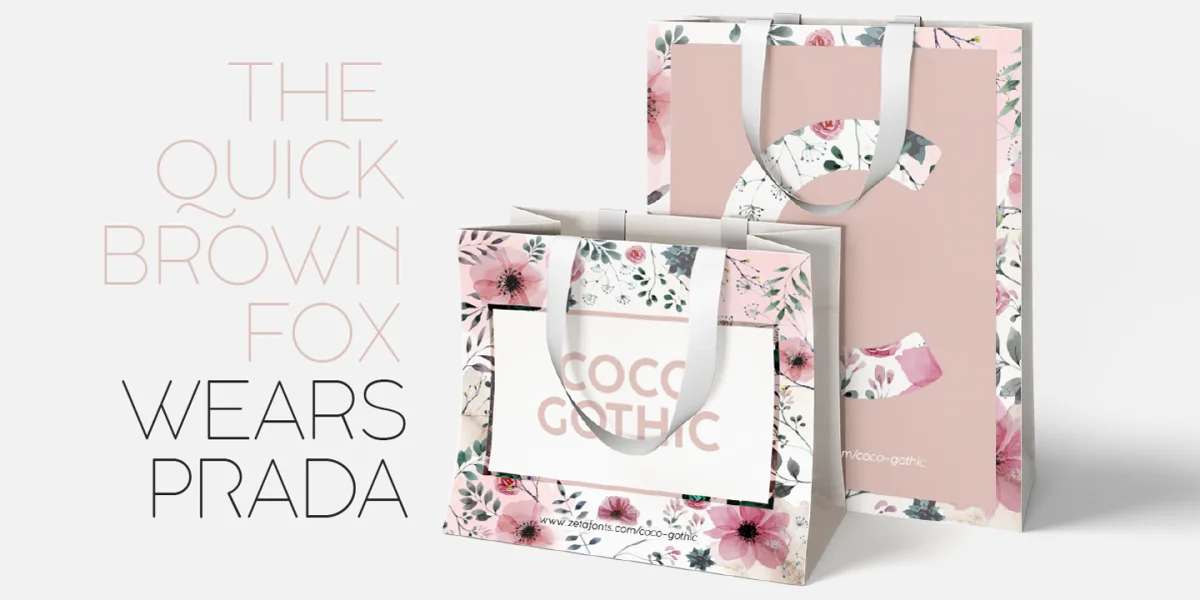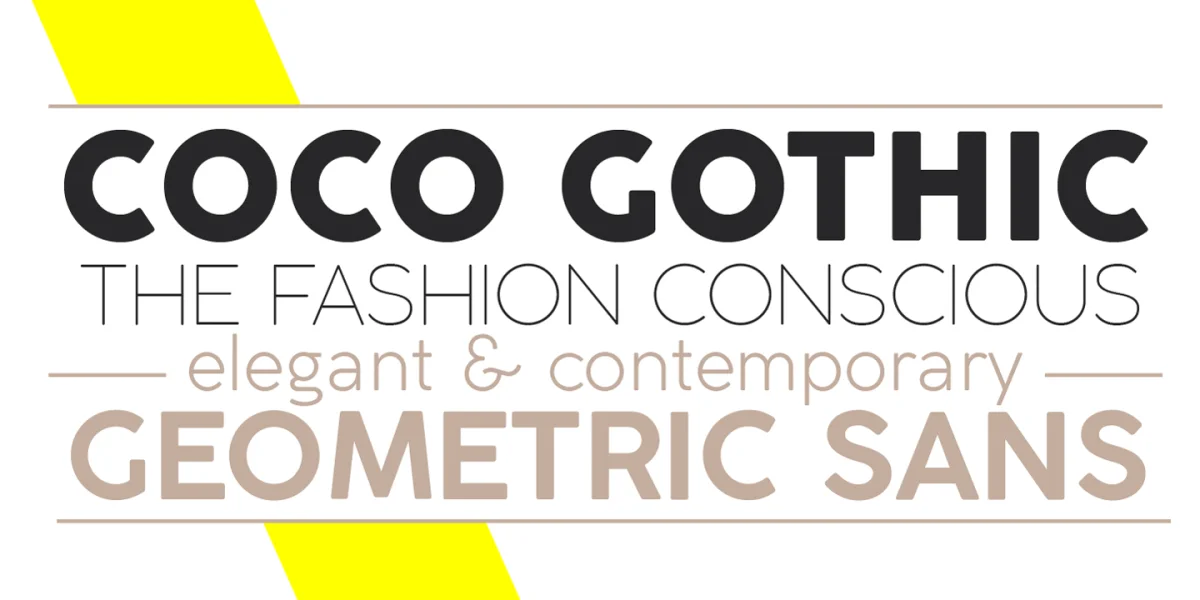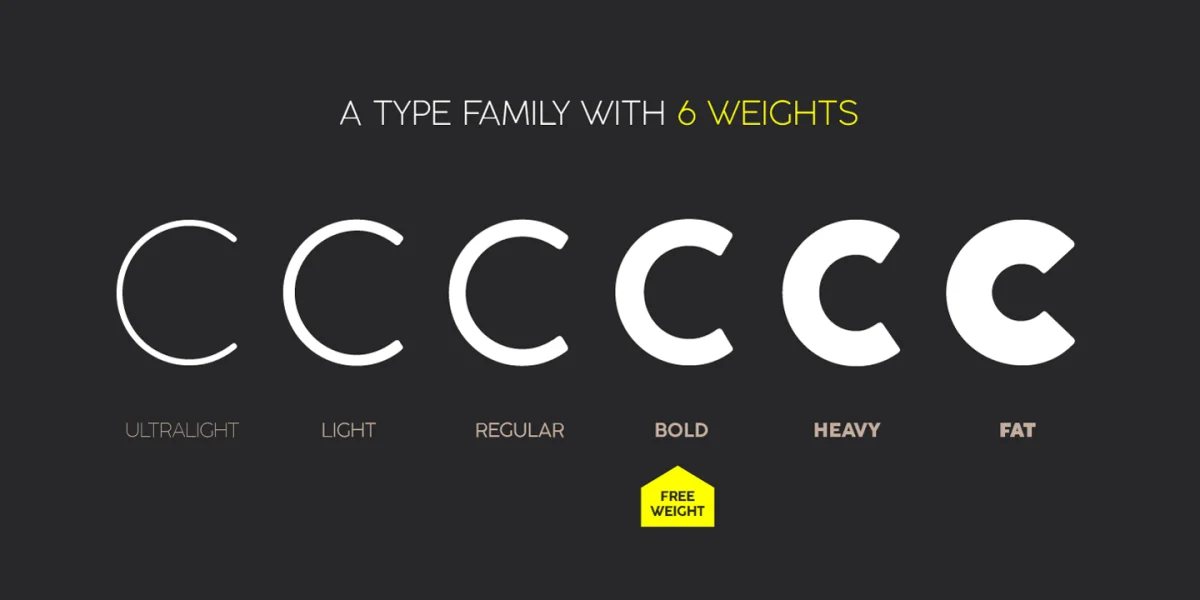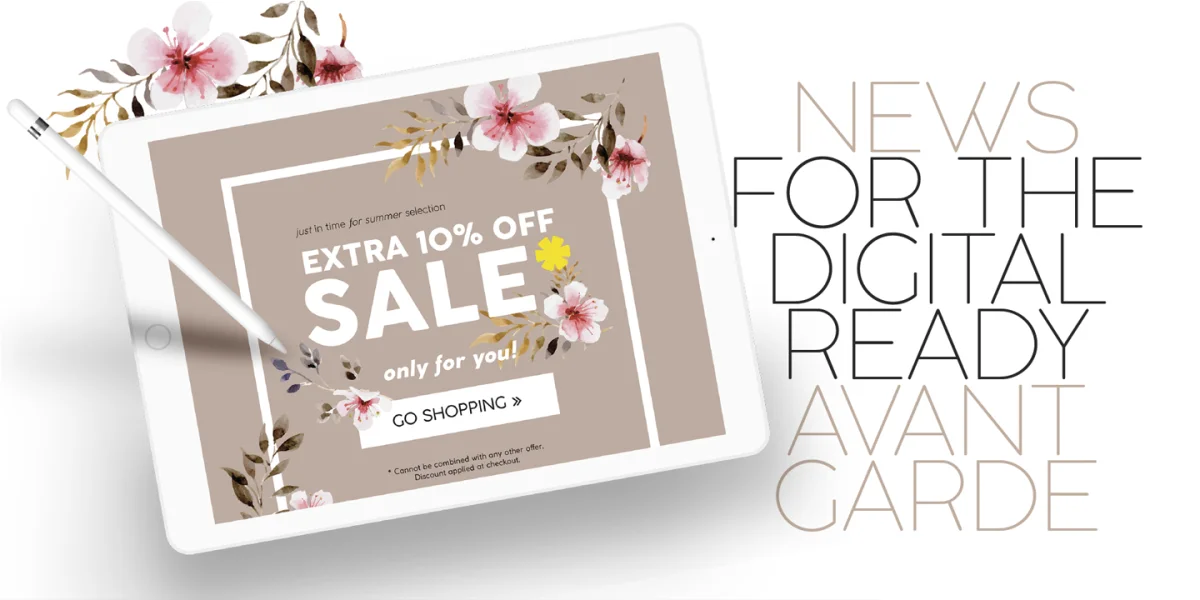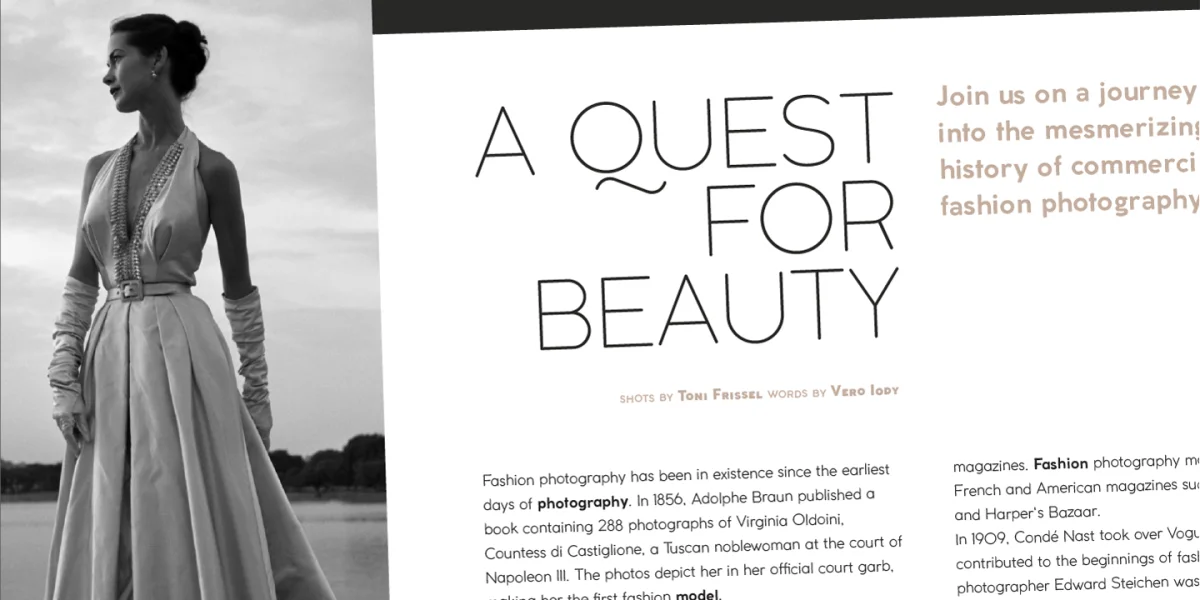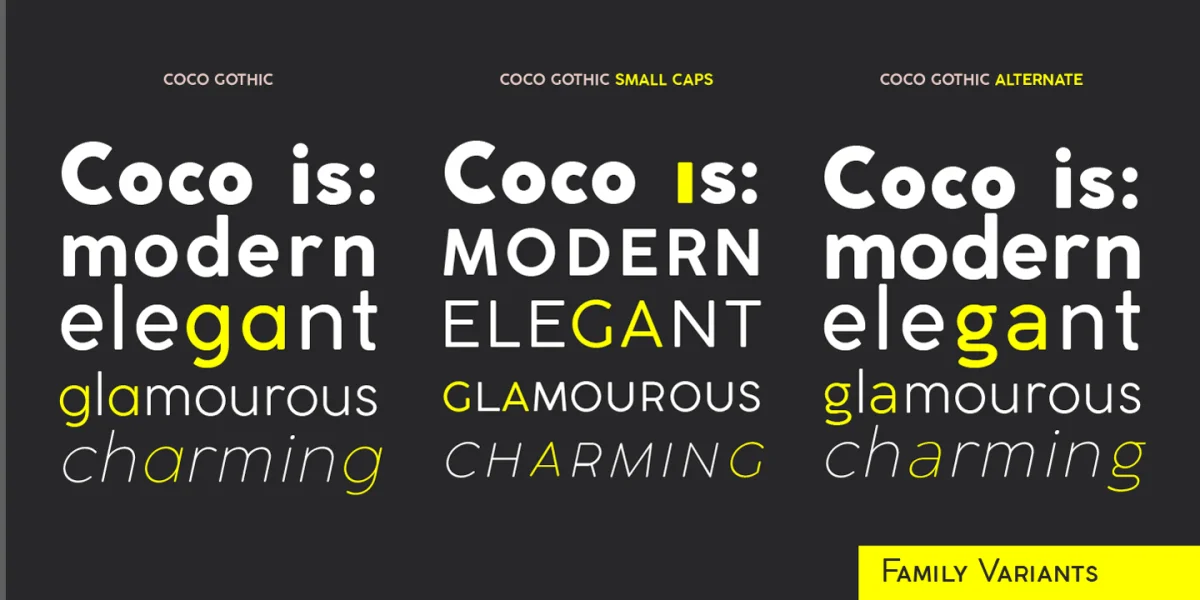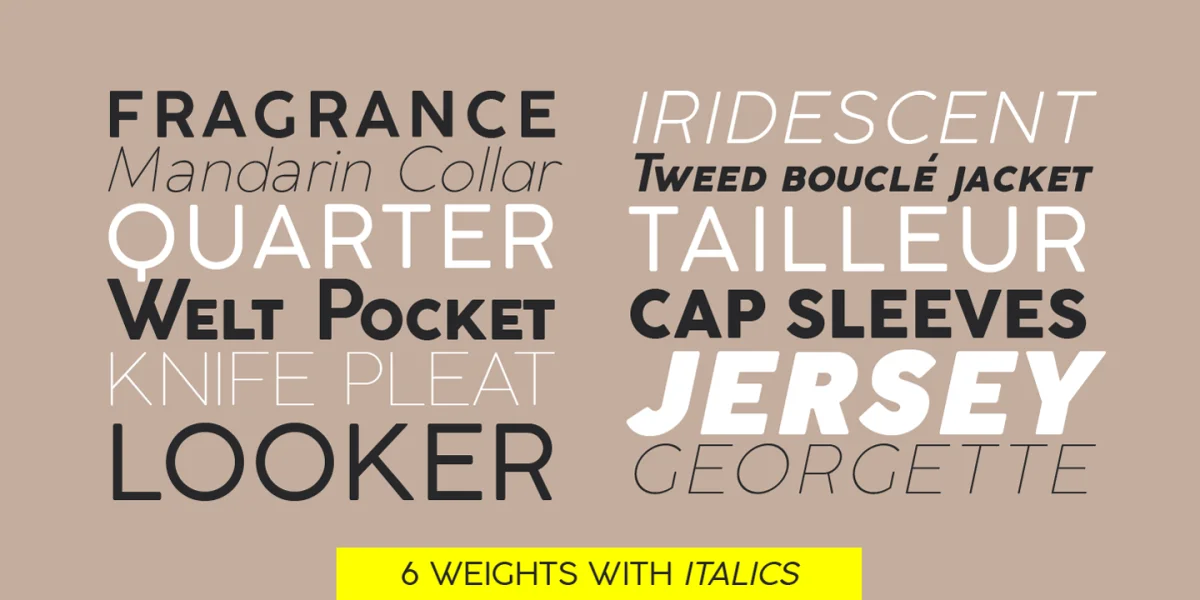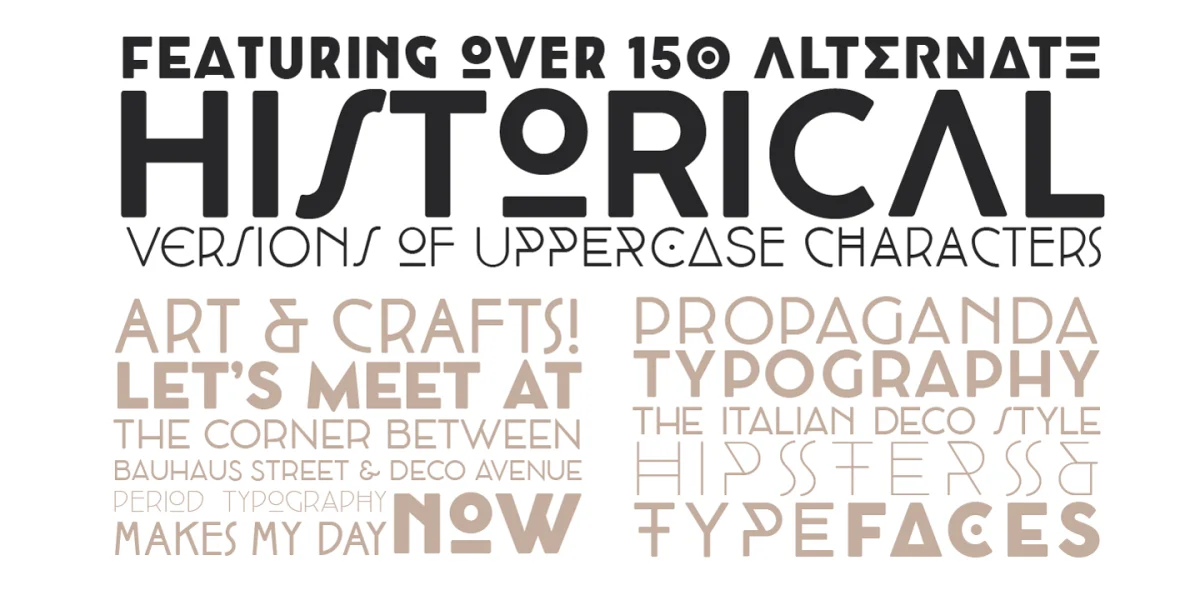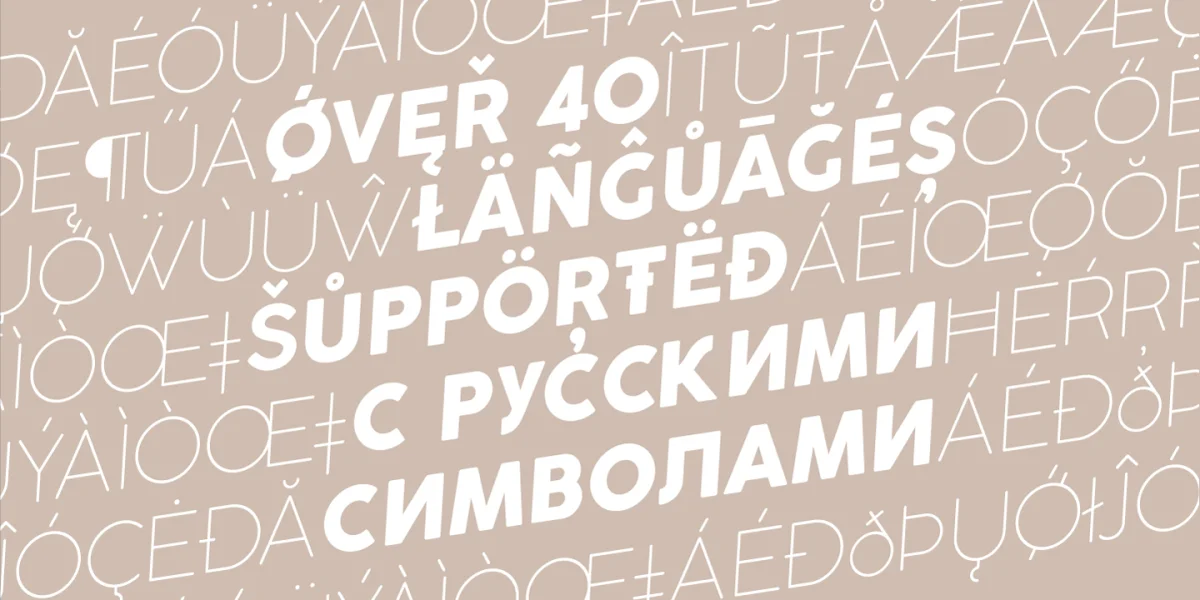
Coco Gothic is a contemporary take on the retro geometric sans serif style of early XX century typefaces like Futura and Avantgarde. The cold, geometric shapes typical of those modernism typefaces have been made softer and more contemporary by visual corrections and slightly rounded corners and a minimalistic design feel. The name of the typeface family comes from the nickname of fashion beloved icon Coco Chanel.